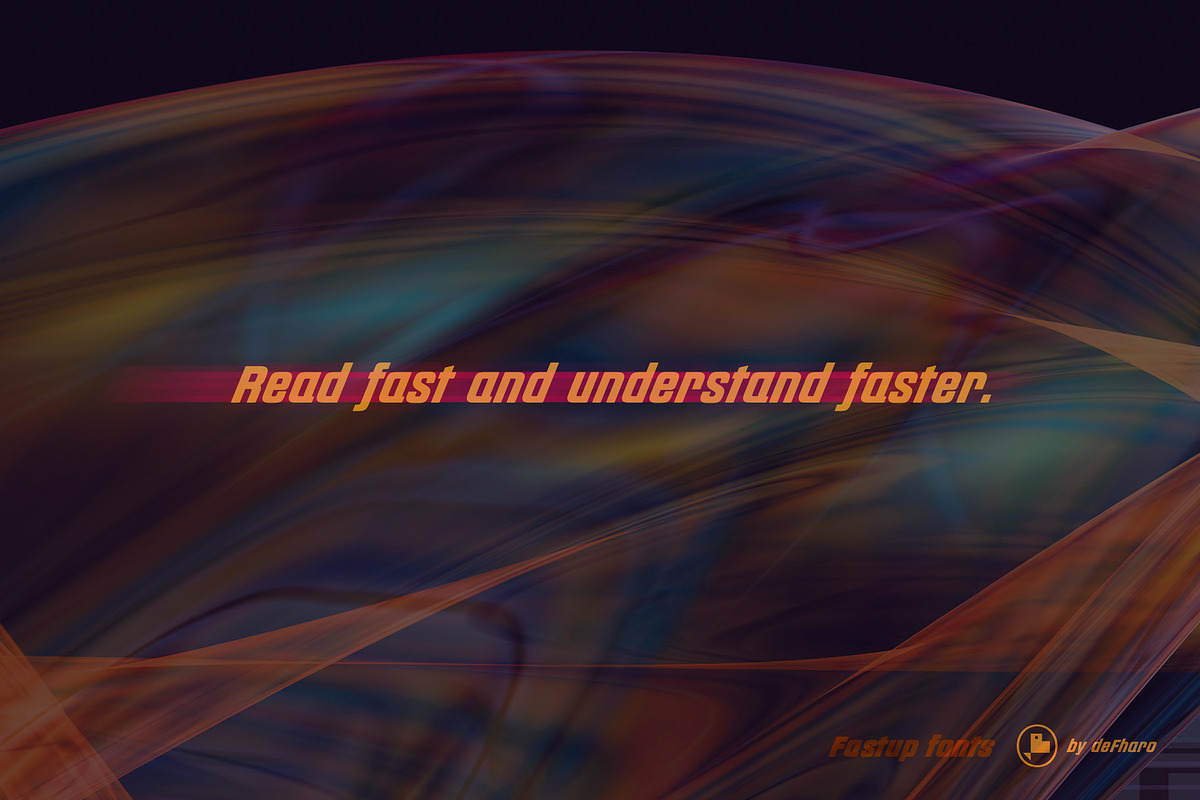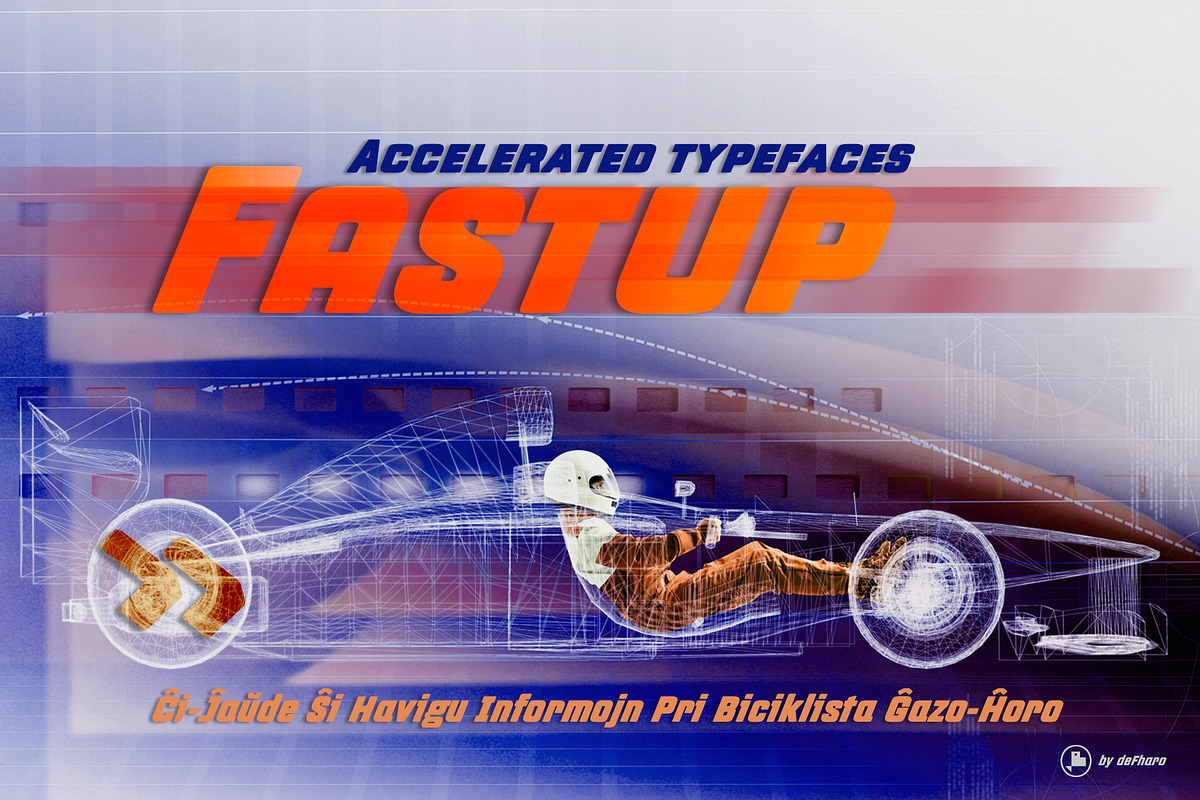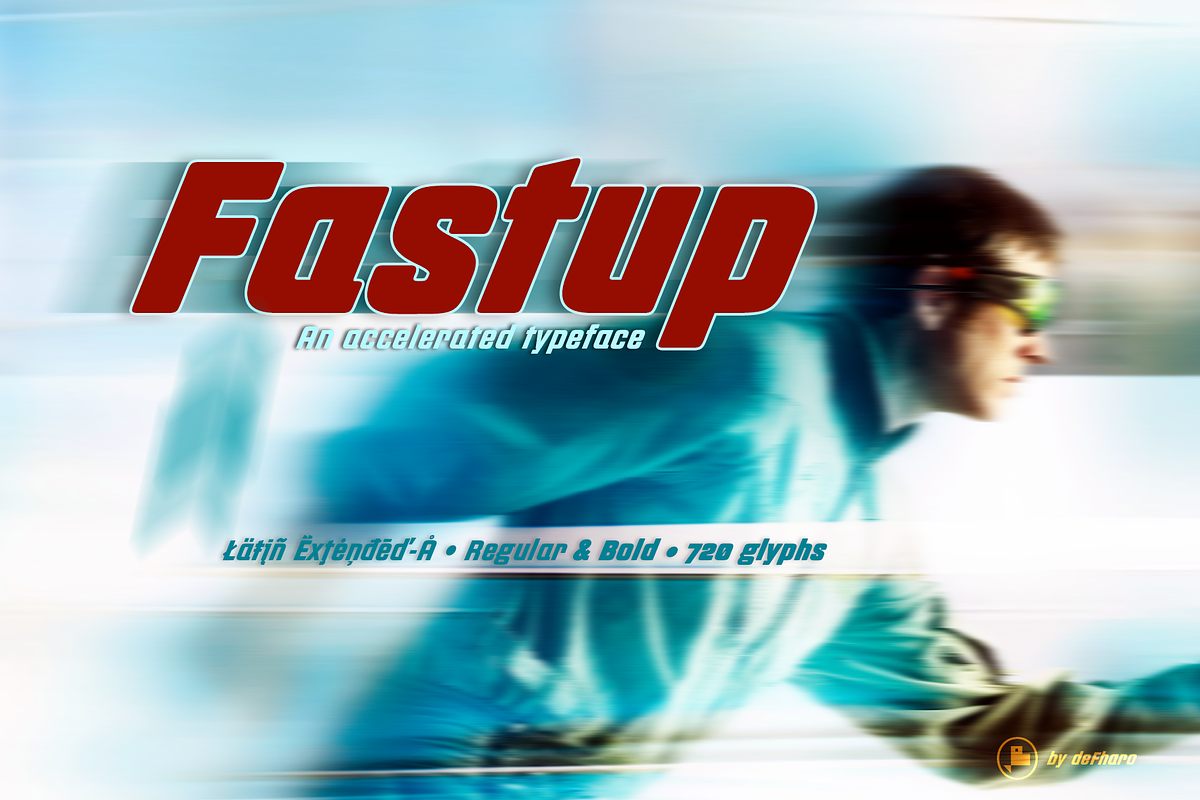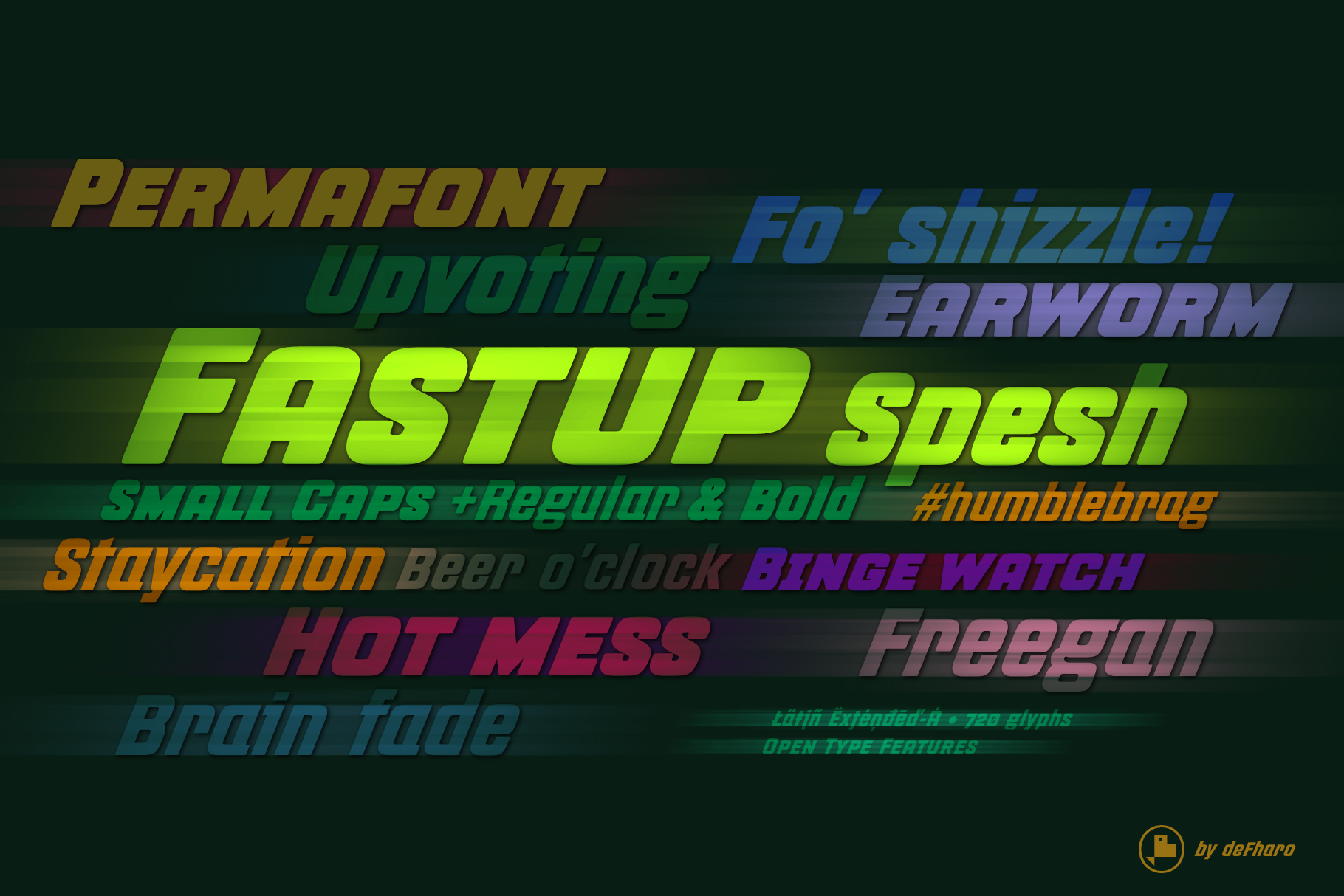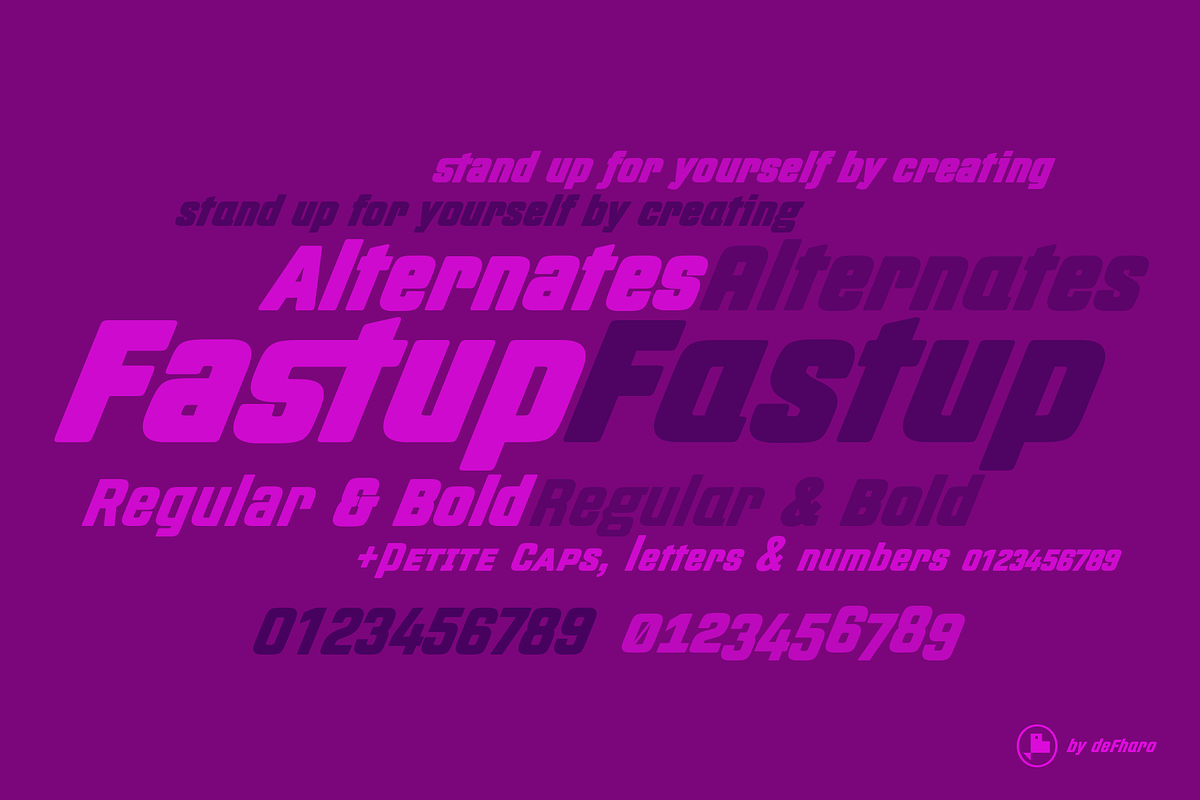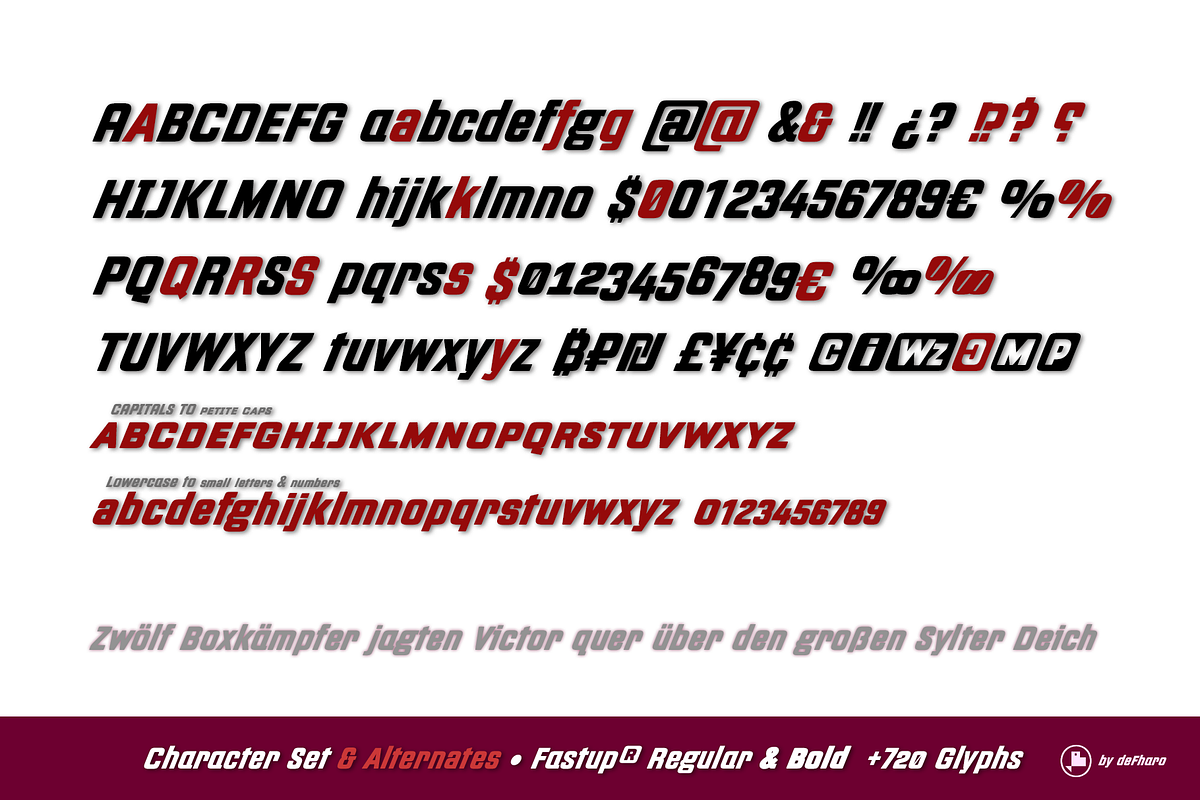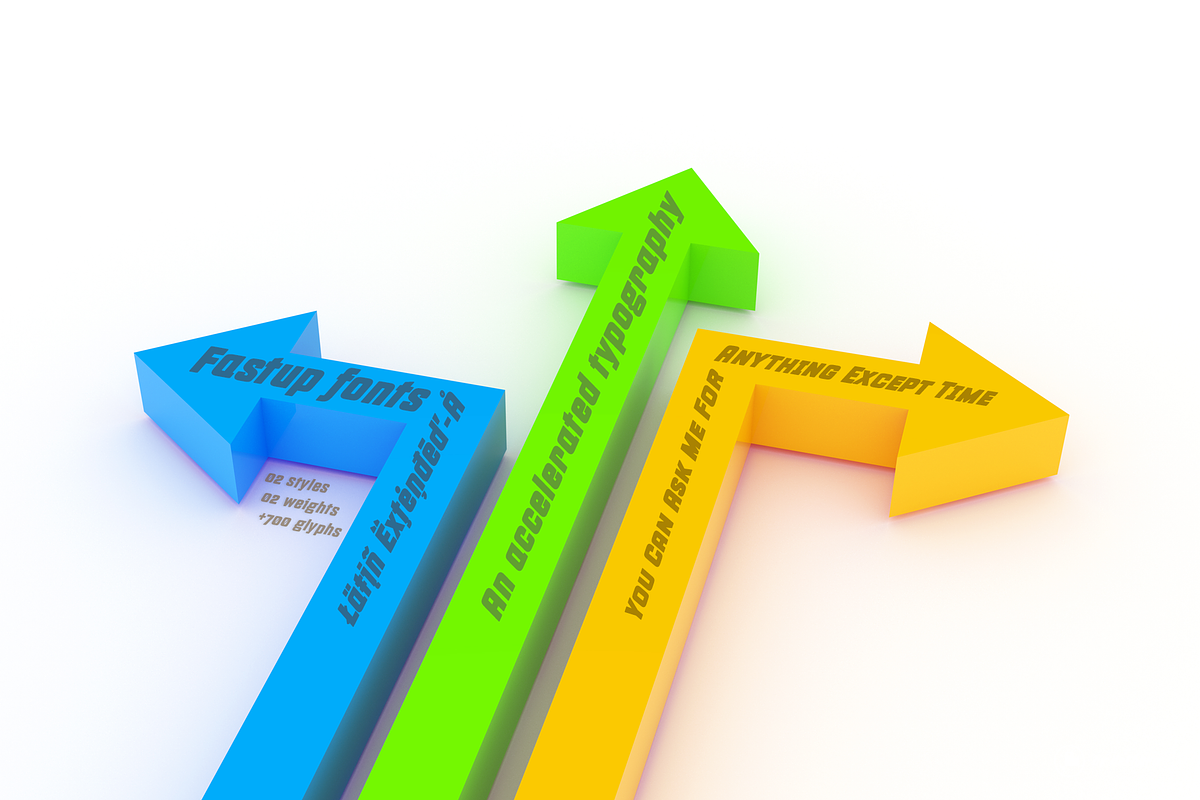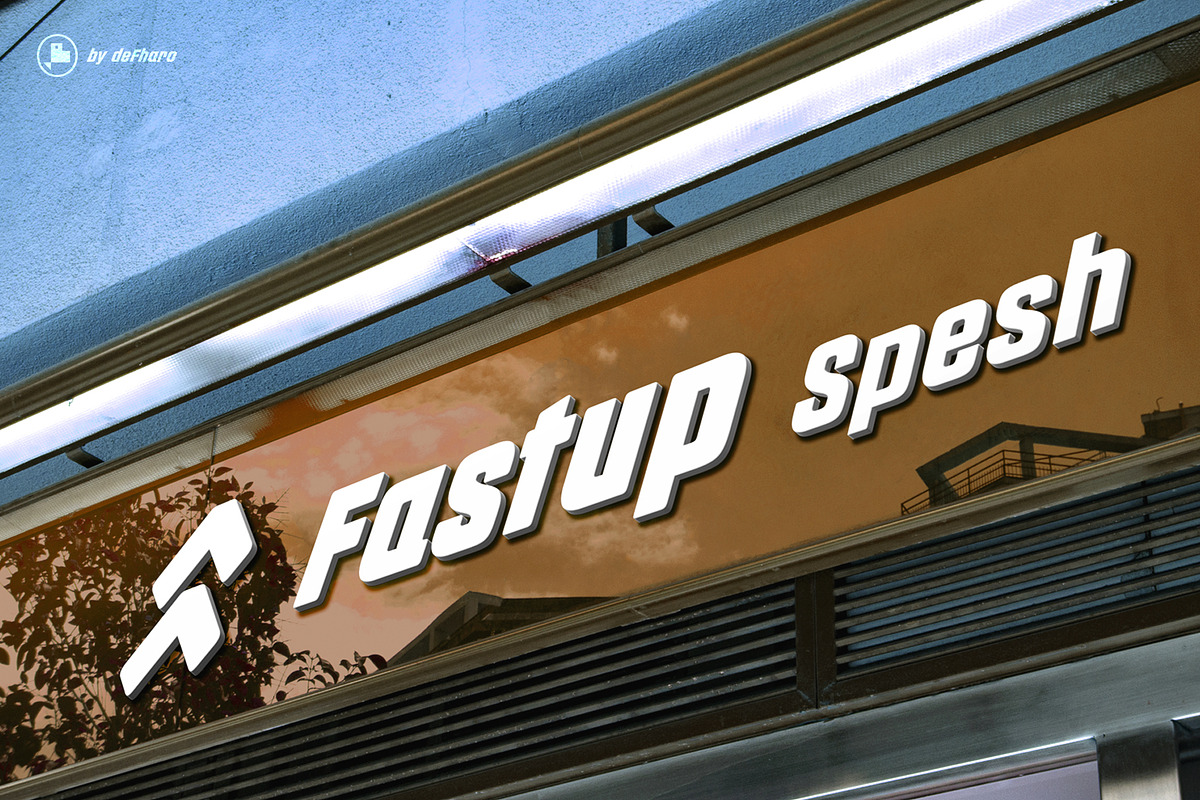
Fastup accelerated typefaces
👍Fastup is available in two weights (Regular and Bold), geometric & sans serif design fonts, with a rounded finish on the vertices that provides warmth, with short ascenders and descenders offers a more compact set of letters, the 22° inclination makes them more dynamic with a current and technological style, the careful configuration of the metrics and the Kerning achieve maximum legibility for these unique typefaces. The fonts including 6 sets of numbers, 2 uppercase, 5 sets of lowercase letters, alternate letters, international currency symbols, and for different cryptocurrencies, in addition, advanced Open Type functions.
These fonts are specially designed for advertising and editorial or corporate design.
- Fastup fonts includes the symbol of Bitcoin and currency symbols.
- OpenType Features: Additional languages, All Alternates, Alternate Annotation Forms, Bitcoin, Capital Spacing, Contextual Alternates, Denominators, Discretionary Ligatures, Extended Fractions, Historical Forms, Inferiors, Kerning, Localized Forms, Numerators, Oldstyle Figures, Ordinals, Scientific Inferiors, Slashed Zero, Small Capitals, Small Capitals From Capitals, Standard Ligatures, Stylistic Set, Subscript, Superior letters, Superiors, Superscript, Titling alternates.